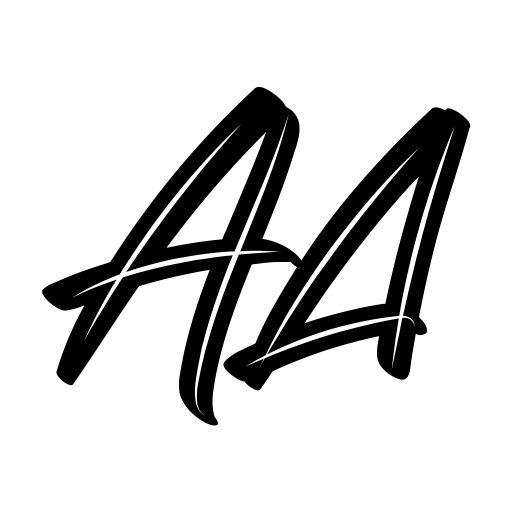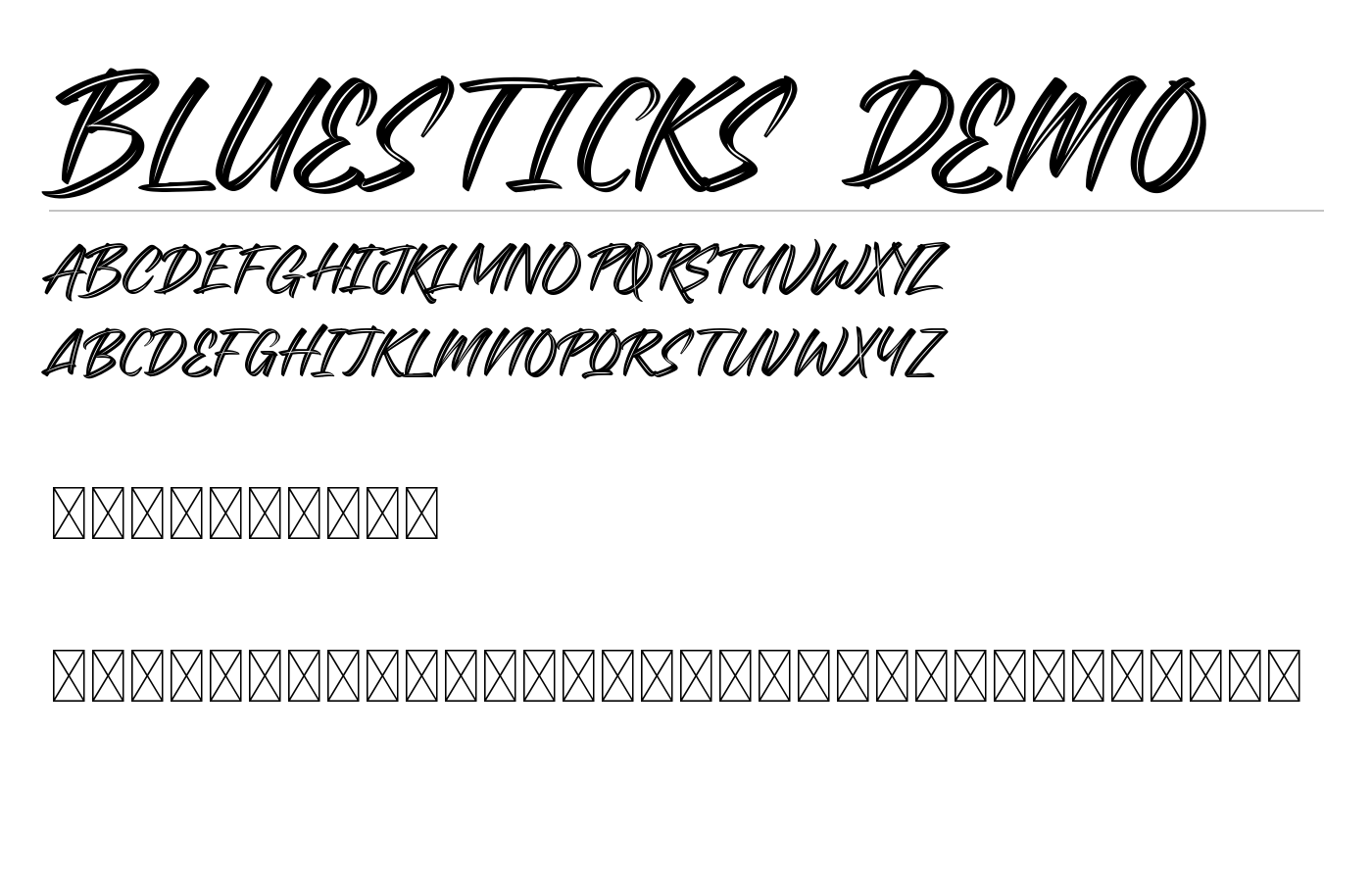
Bluesticks Demo is an energetic and expressive script font featuring a hand-drawn, brush style with bold, dynamic strokes and a slight slant that adds a sense of motion and spontaneity. Its casual yet artistic flair makes it perfect for creative branding, posters, and packaging where a lively, informal, and modern feel is desired. This font works best in headlines and display use, bringing personality and vibrancy to any design.
Bluesticks Demo Font
About Bluesticks Demo Font
| Font family | Bluesticks Demo Font |